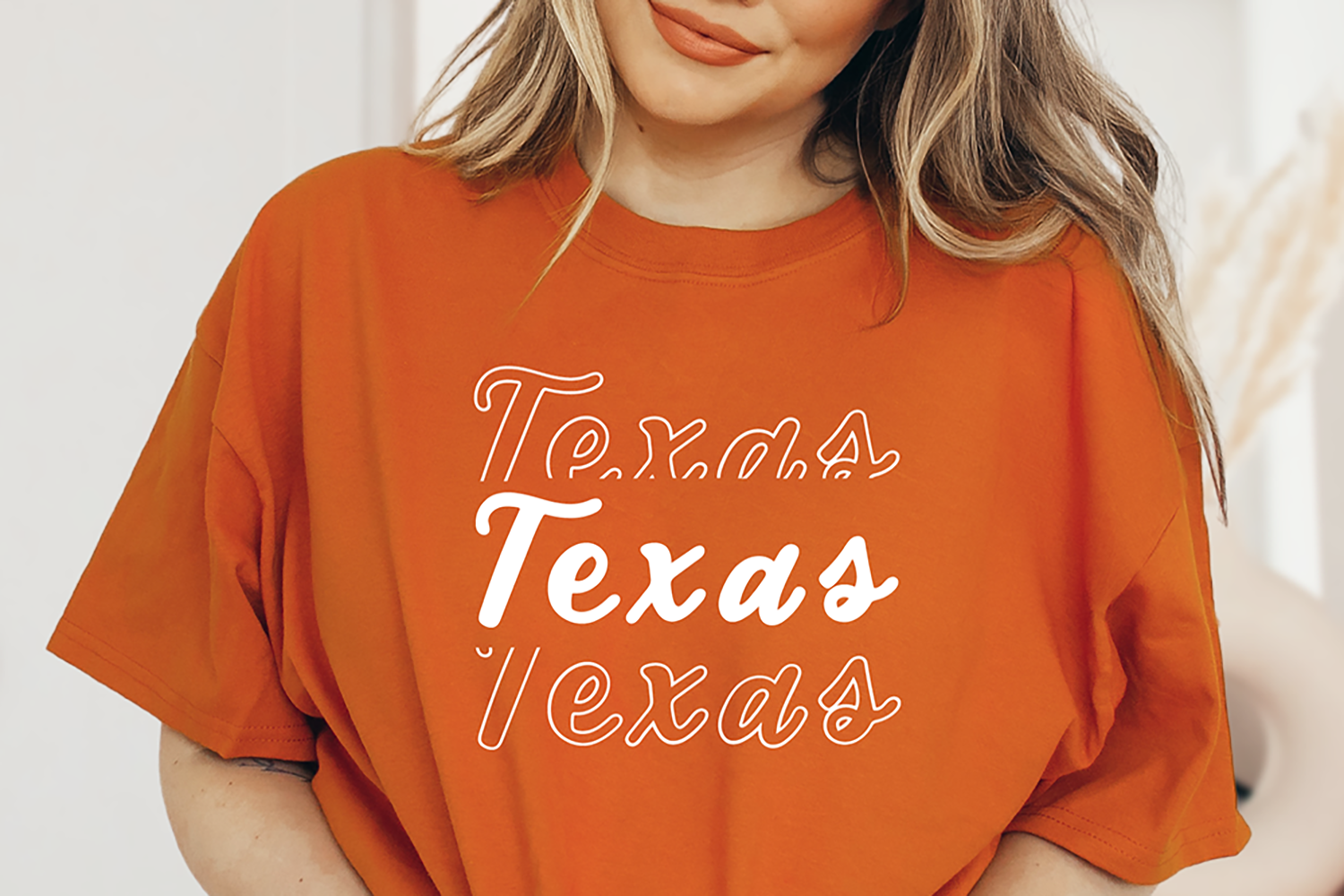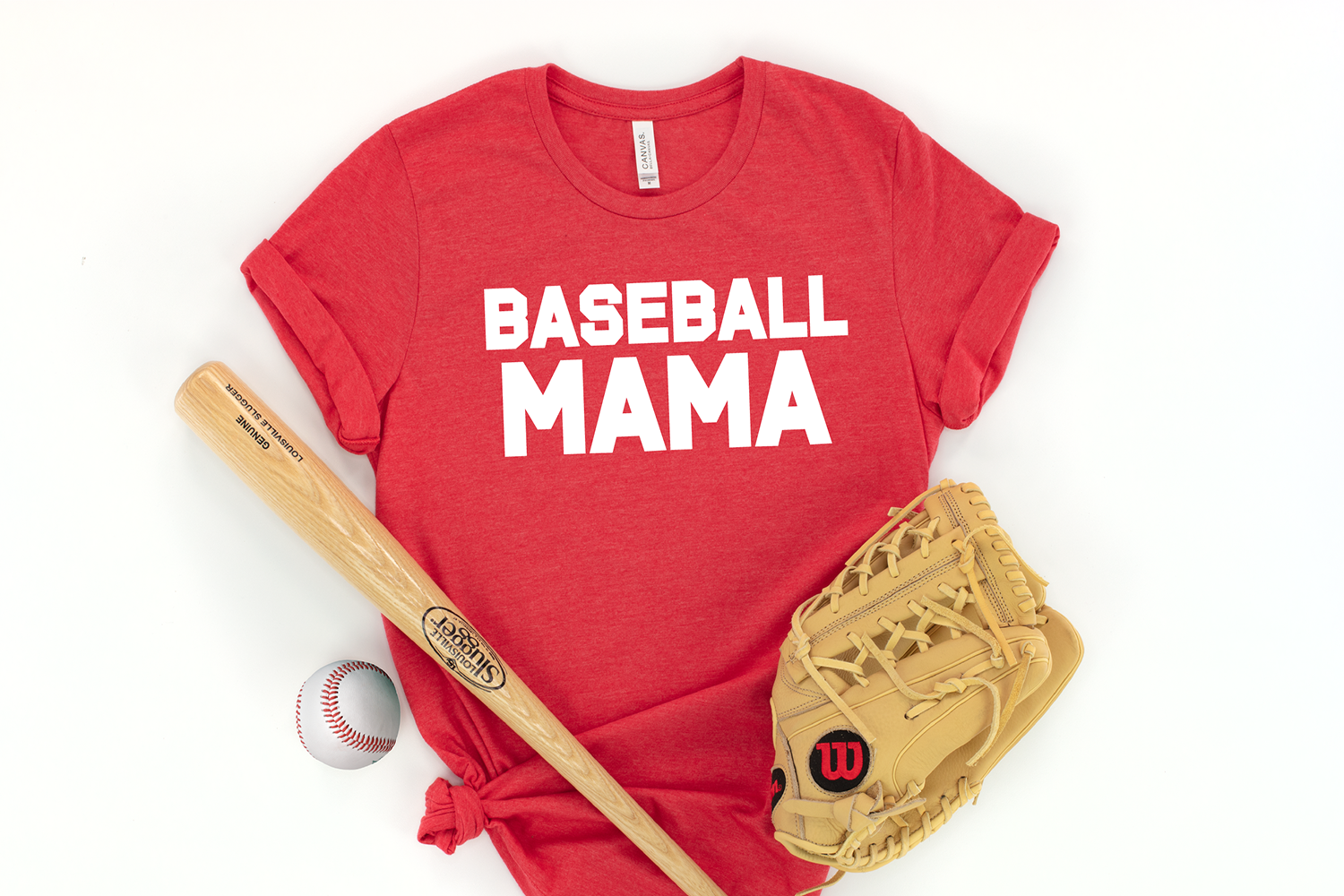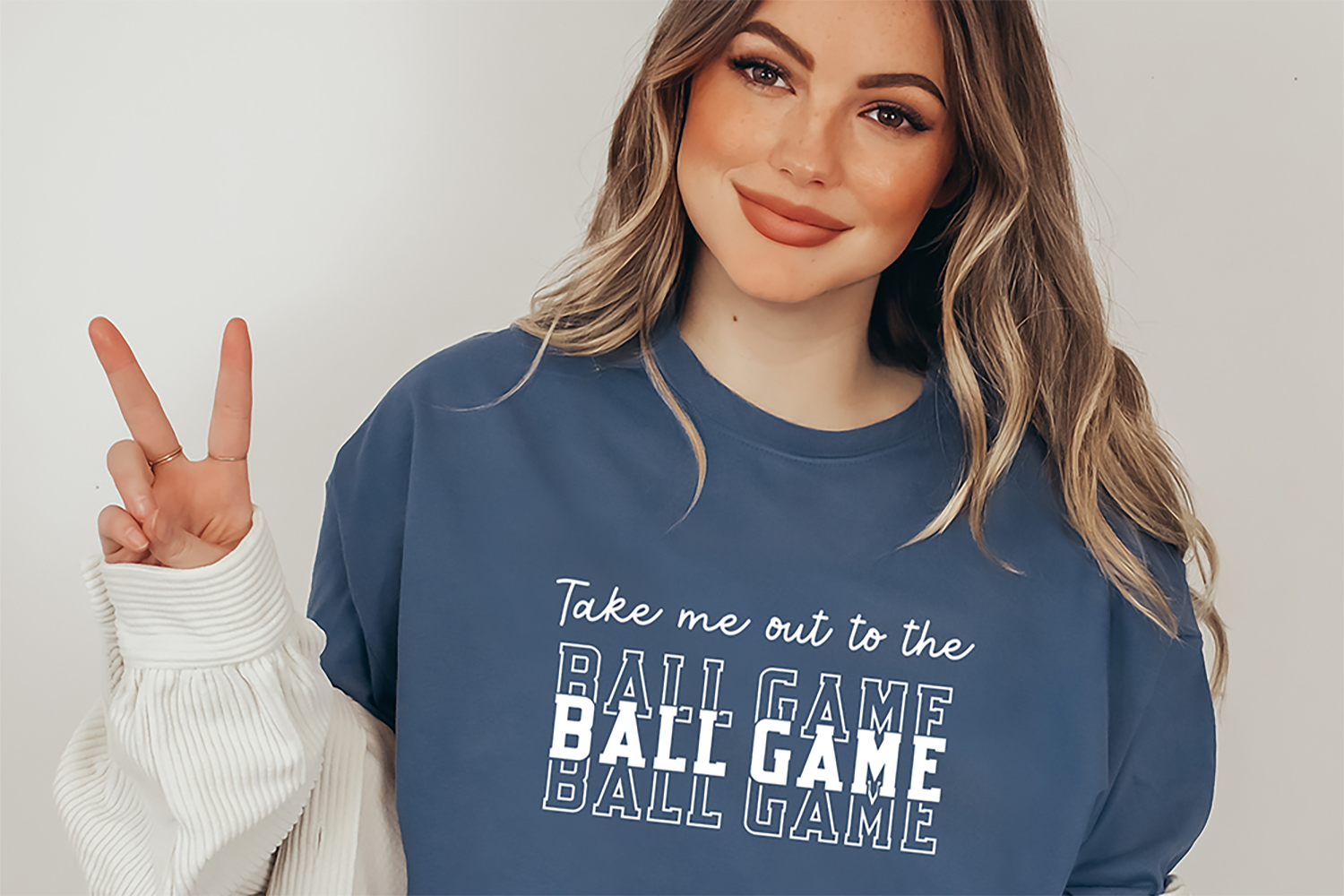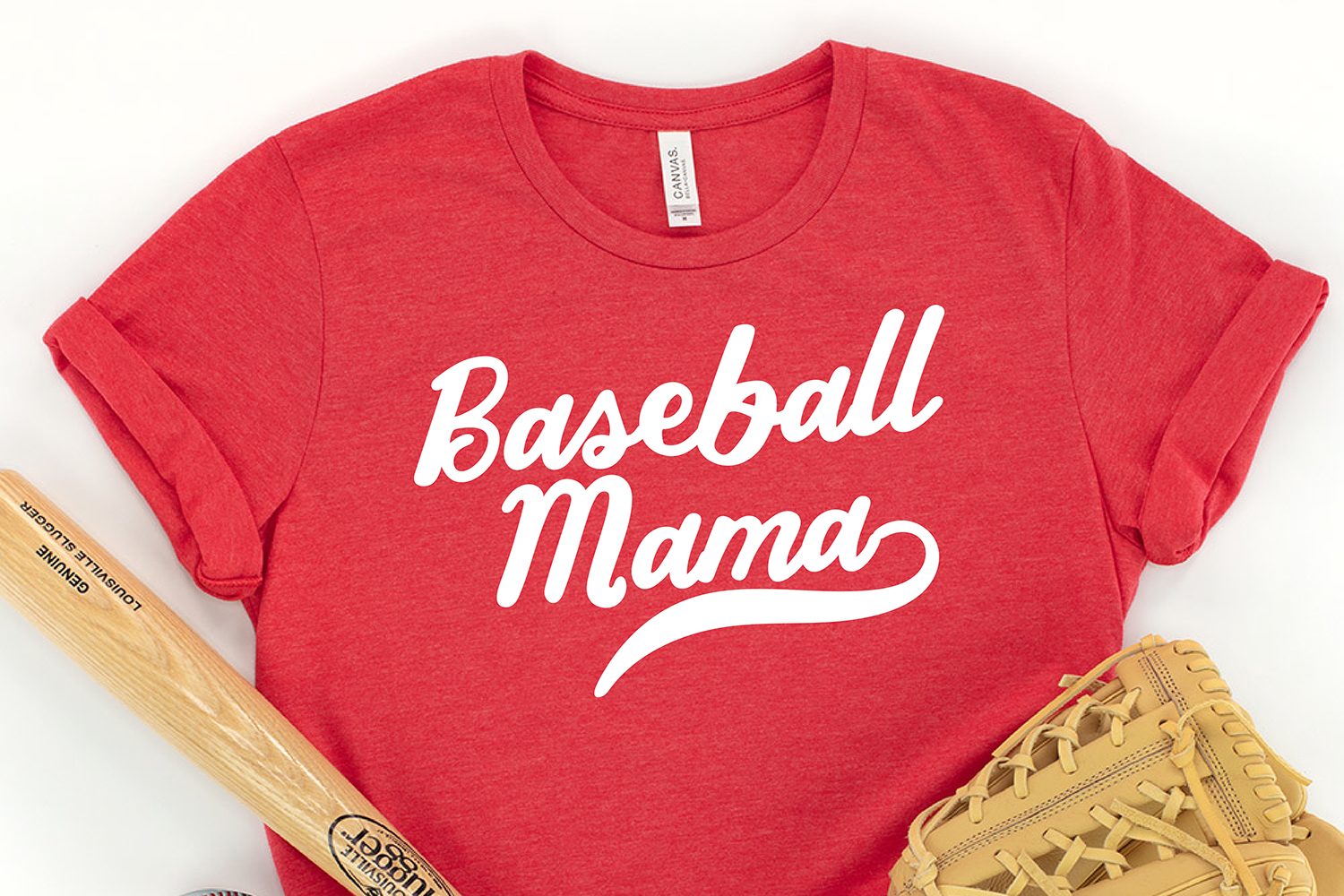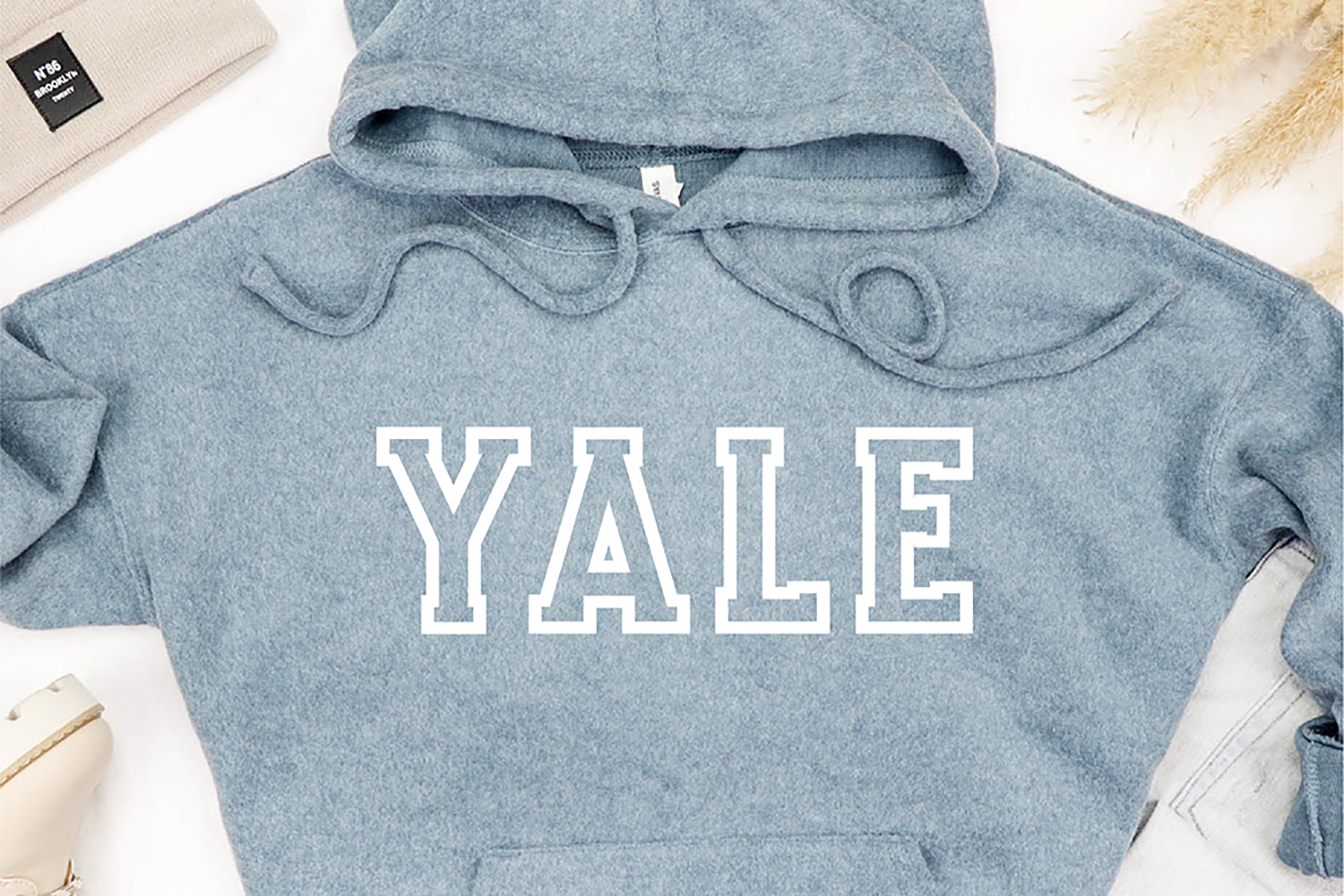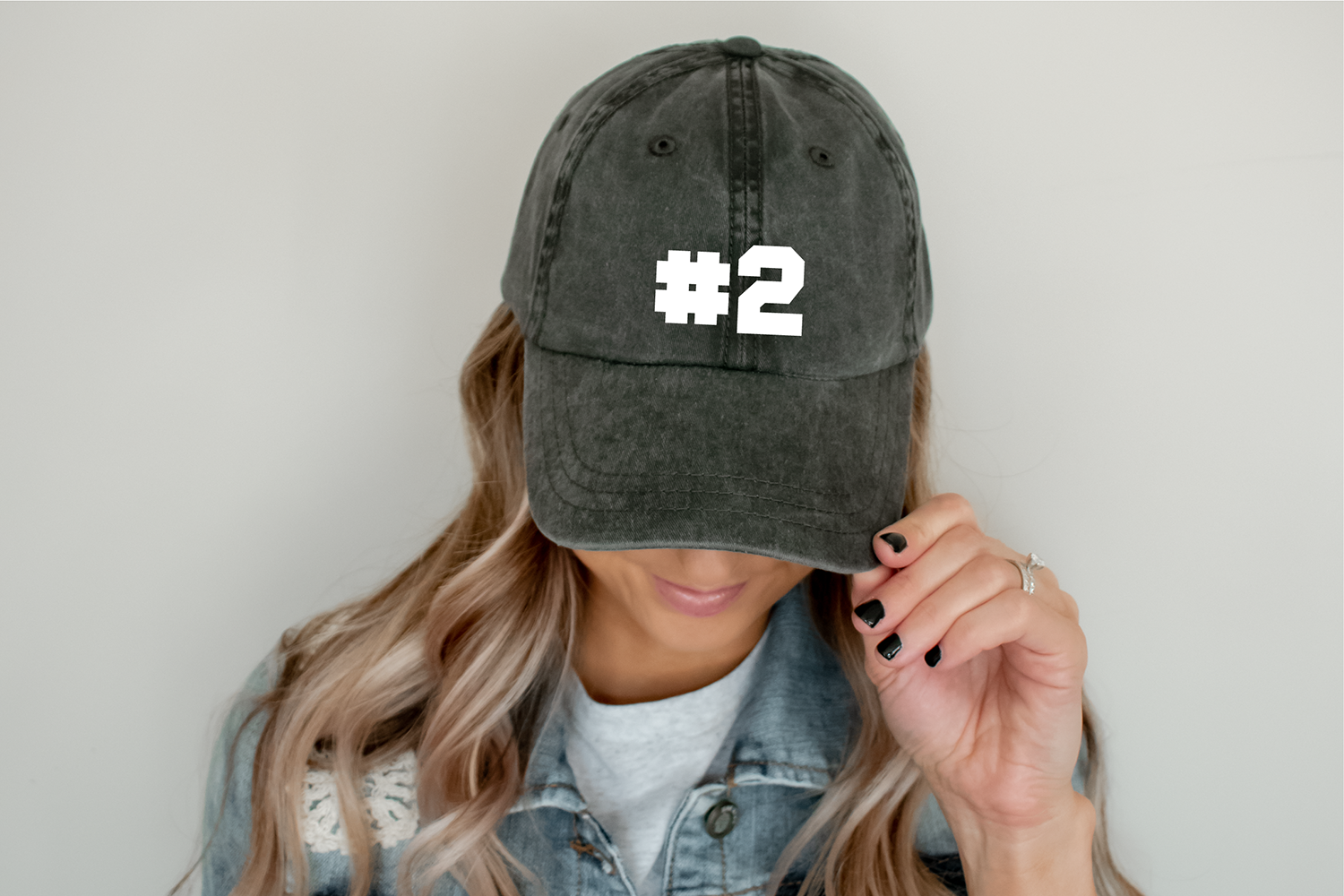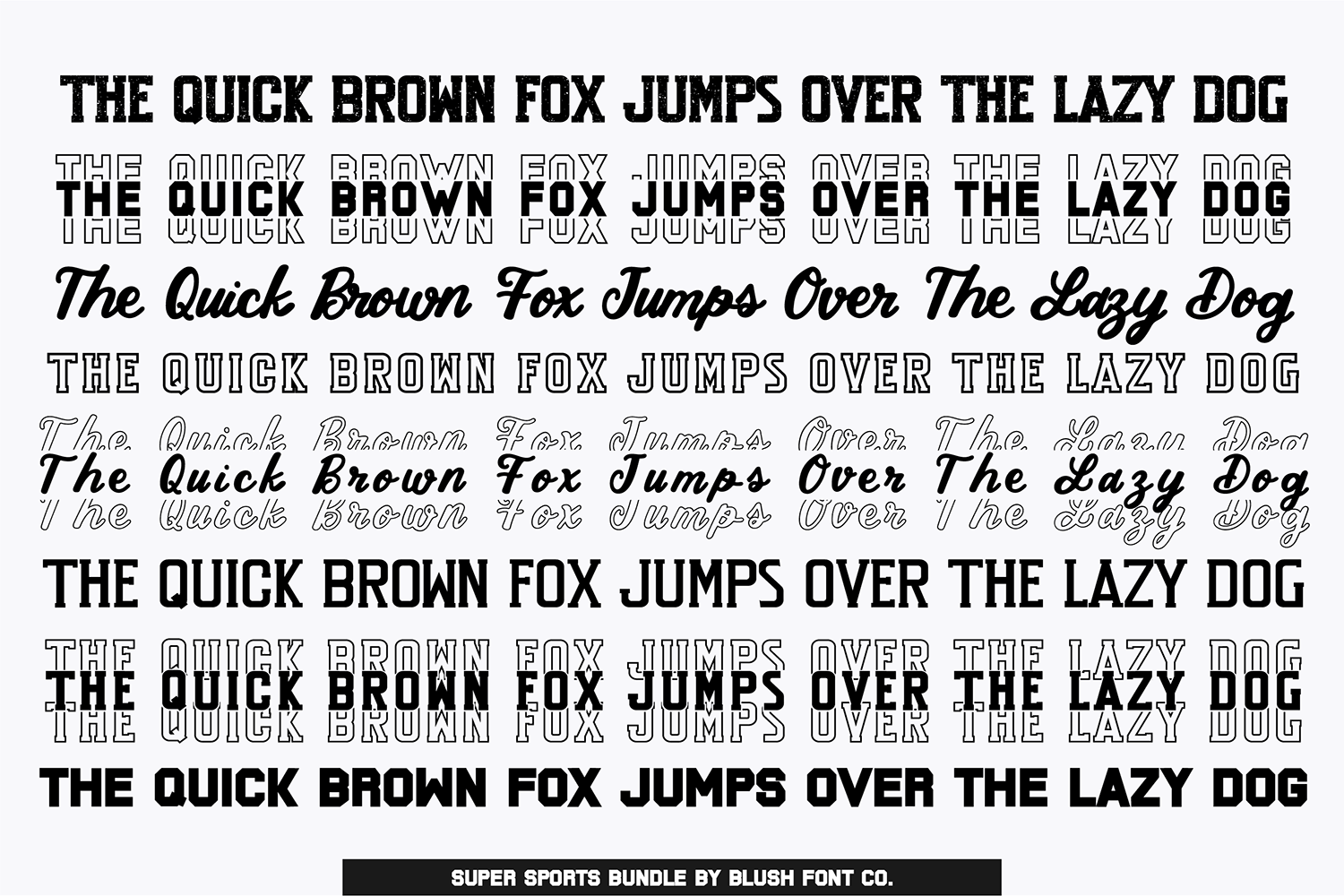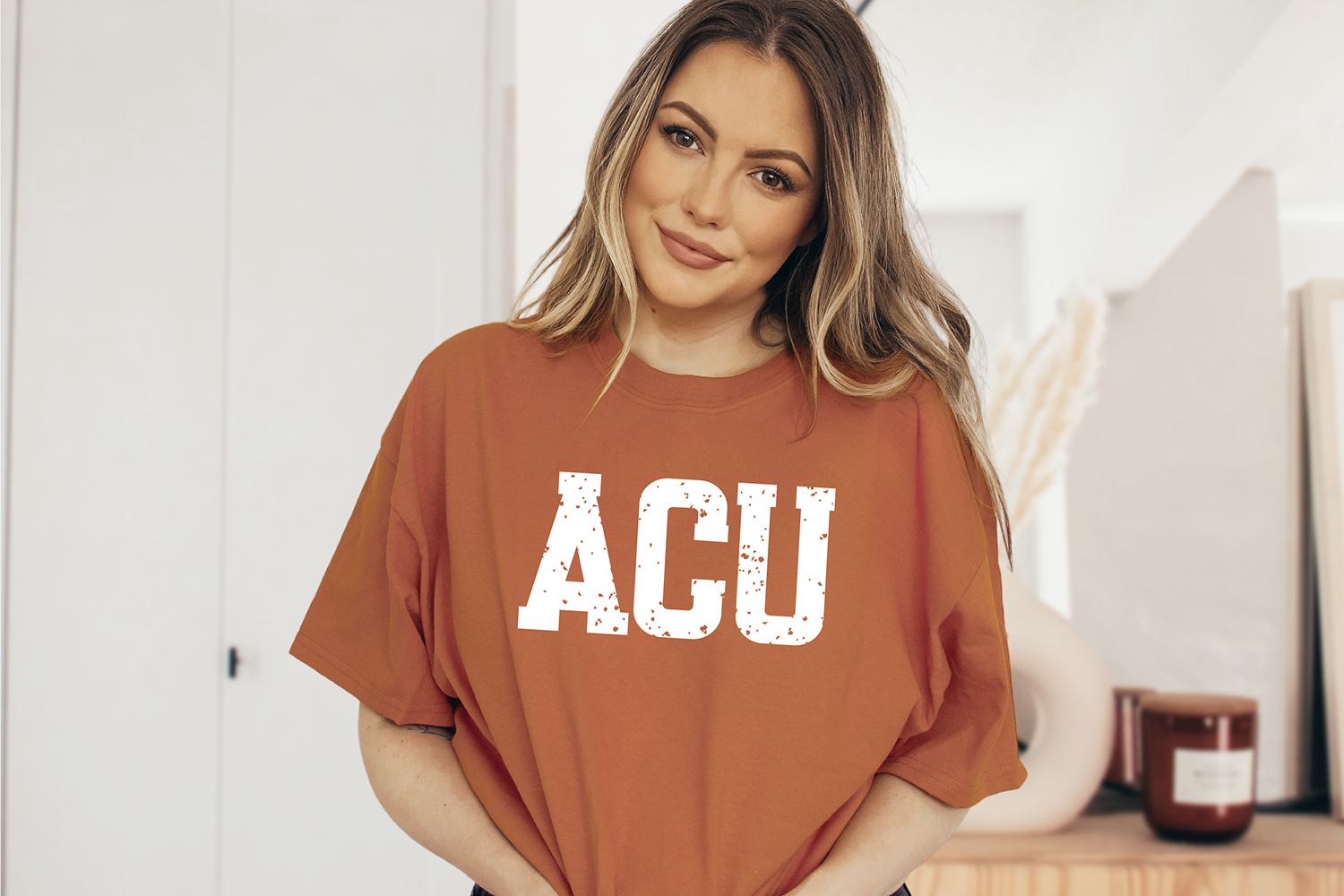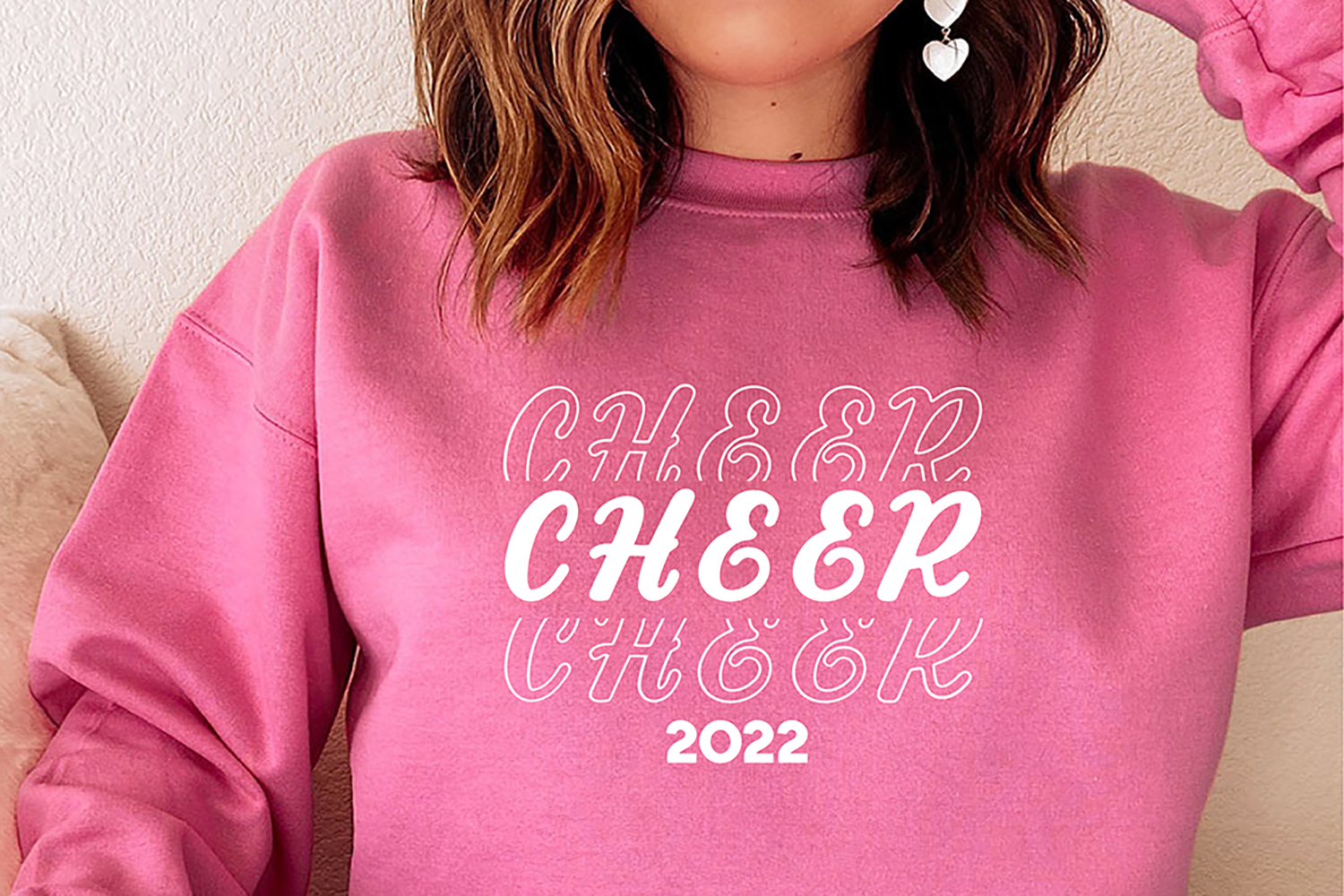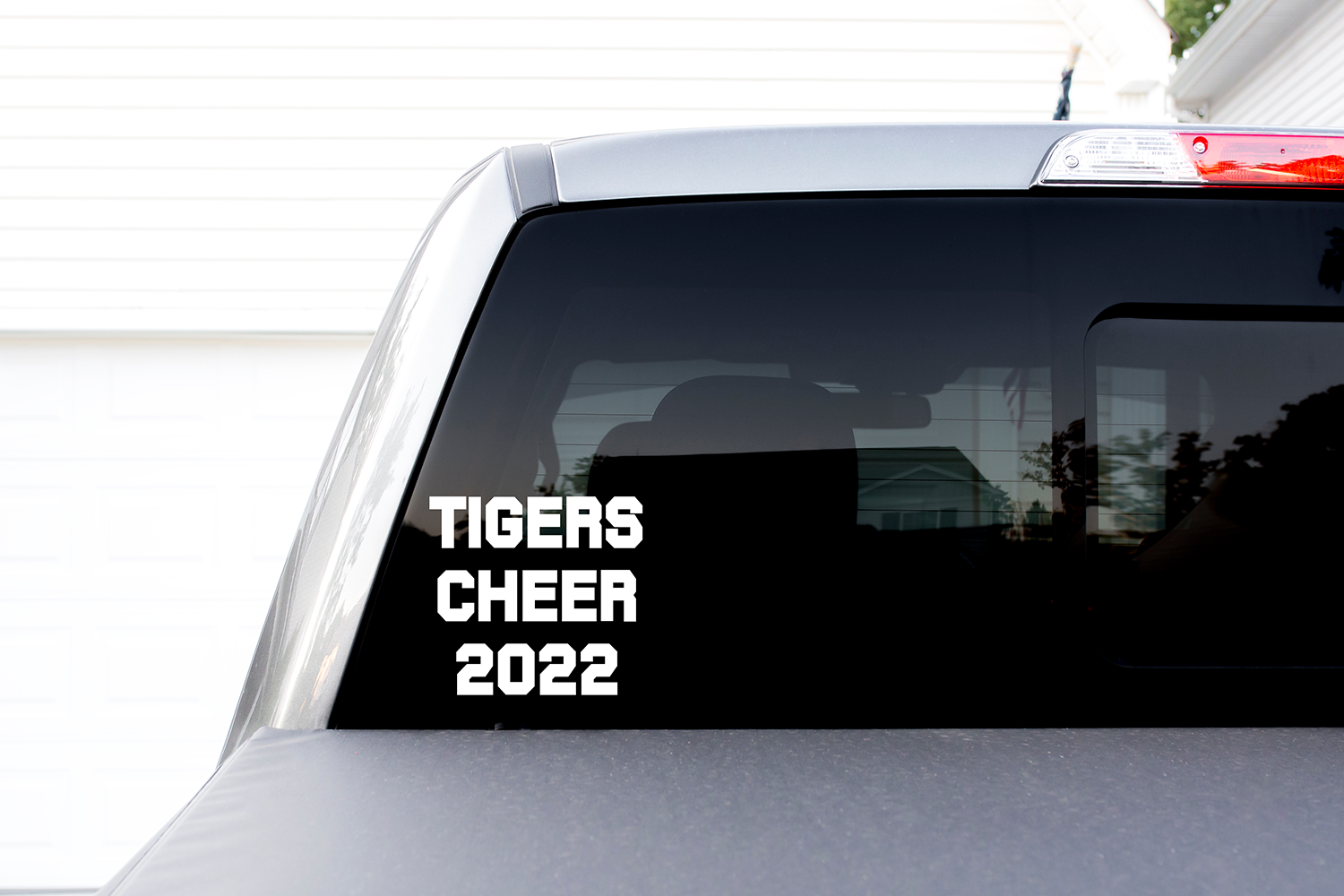
SUPER SPORTY Font Bundle Vol. 1
This sporty font bundle includes 8 original varsity and jersey-inspired fonts designed for athletic, collegiate, and team-style projects. The collection features bold sports lettering, jersey number styles, classic collegiate fonts, and athletic display typefaces that work well for football, baseball, basketball, hockey, soccer, and general sports-themed designs.
These fonts are useful for team shirts, school spirit apparel, game day graphics, sports logos, sweatshirts, stickers, social media graphics, sublimation, Cricut projects, and custom merchandise. The styles range from clean collegiate lettering to vintage athletic-inspired typography, making the bundle flexible for both modern and retro sports designs.
Great for:
• Varsity Designs
• Jersey Numbers
• Collegiate Graphics
• Football & Baseball Shirts
• Team Merch
• Sports Logos
• School Apparel
• Game Day Designs
• Cricut & Sublimation Projects